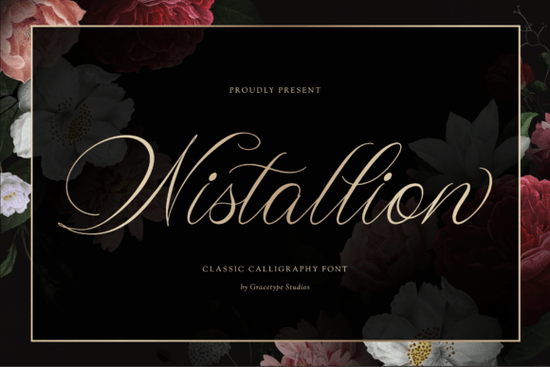
If you're looking for a script font that feels both refined and effortlessly elegant, Wistallion Font stands out as a top choice for designers who value subtle luxury in their work. It’s not just another cursive typeface it’s built with intention, balancing delicate details like hairline ascenders and soft loop flourishes to create a rhythm that feels natural on the page. Whether you’re designing wedding invitations, branding for a boutique skincare line, or social media graphics for a high-end lifestyle brand, this font brings a quiet sophistication that speaks without shouting.
What makes Wistallion Font special?
Unlike many script fonts that lean too heavily into dramatic flair or stiff formality, Wistallion finds its strength in balance. The strokes are light but intentional each curve flows smoothly from one letter to the next, giving your text a sense of motion, like handwriting captured mid-sentence. The capital letters feature gentle loops that add charm without distraction, while the lowercase letters maintain a clean baseline that keeps everything readable even at smaller sizes.
This is especially useful when you're working on packaging, labels, or digital posts where clarity matters just as much as style. You can use it for product names, taglines, or even full quotes its graceful structure supports longer text without feeling overwhelming.
Best uses for Wistallion Font in real projects
Here’s how creatives are putting this font to work:
- Wedding stationery: From save-the-dates to place cards, Wistallion adds a timeless touch that feels personal yet polished.
- Luxury product branding: Ideal for indie cosmetic brands, fine jewelry lines, or artisanal wineries that want to convey quality through typography.
- Social media headers: Use it for Instagram story covers or Pinterest pins to draw attention with minimal effort.
- Custom invitations: Perfect for formal events where the tone should feel elevated but not stuffy.
It’s also a great fit for print-on-demand sellers who want to offer premium-looking designs without needing advanced layout skills. The font works well across both digital and physical formats, making it versatile for Etsy shops, Shopify stores, or handmade gift businesses.
How does it compare to similar fonts?
If you’ve explored other script fonts, you might have noticed that some feel too busy or inconsistent in stroke weight. Wistallion avoids those pitfalls. Compared to fonts like Brother Font, which has a more casual, handwritten vibe, Wistallion leans into refinement. It’s less about spontaneity and more about precision in design.
For a softer, more playful feel, Summer Beauty Font offers a breezy alternative, but if you’re aiming for something more formal and enduring, Wistallion fits better. Similarly, Stanley Font has a bold personality, while Wistallion remains understated and elegant. And if you're drawn to romantic, bridal-inspired styles, Bride Squad Font shares some visual DNA but Wistallion’s thinner strokes and consistent flow give it a more modern edge.
You can explore these options side by side to see what aligns best with your project’s mood. But if you're after a font that feels both classic and contemporary, Wistallion often hits the sweet spot.
Final thoughts: Is Wistallion right for your next project?
If you’re drawn to clean, high-end aesthetics and want a font that doesn’t overpower your message, Wistallion Font delivers. It’s not flashy, but it’s memorable. It’s not trendy, but it’s timeless. For small business owners, independent designers, and crafters who care about detail, it’s a reliable tool in your creative toolkit.
Before finalizing your design, try pairing it with a simple sans-serif font for contrast this combo keeps your layout balanced and professional.